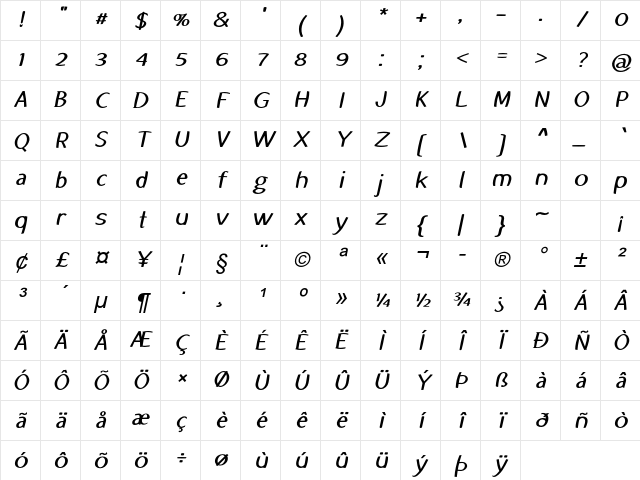
Shepherd Bold Italic
Shepherd Family
Shepherd Bold Italic
Design Context for Shepherd
Shepherd is a composed and adaptable typeface that performs quietly and consistently across a wide range of design contexts. The slanted form adds forward momentum and visual energy. Its bold stroke weight gives it real presence on the page.